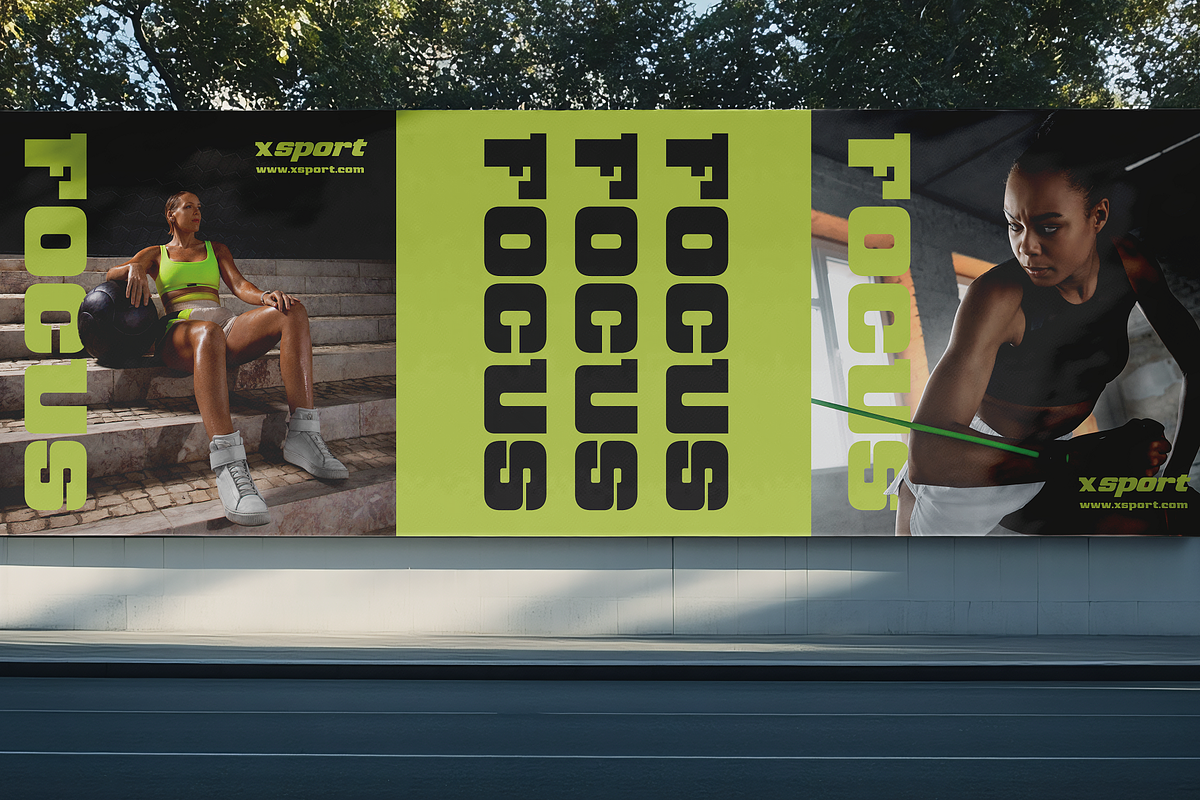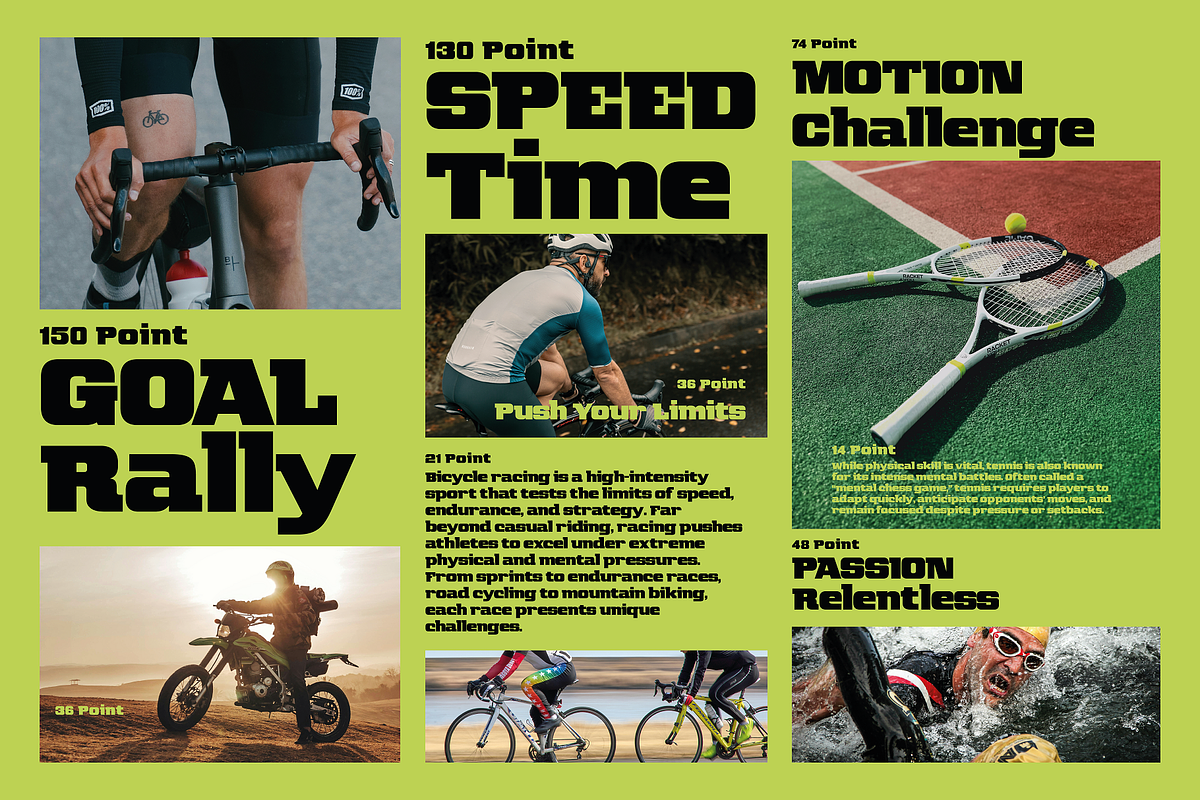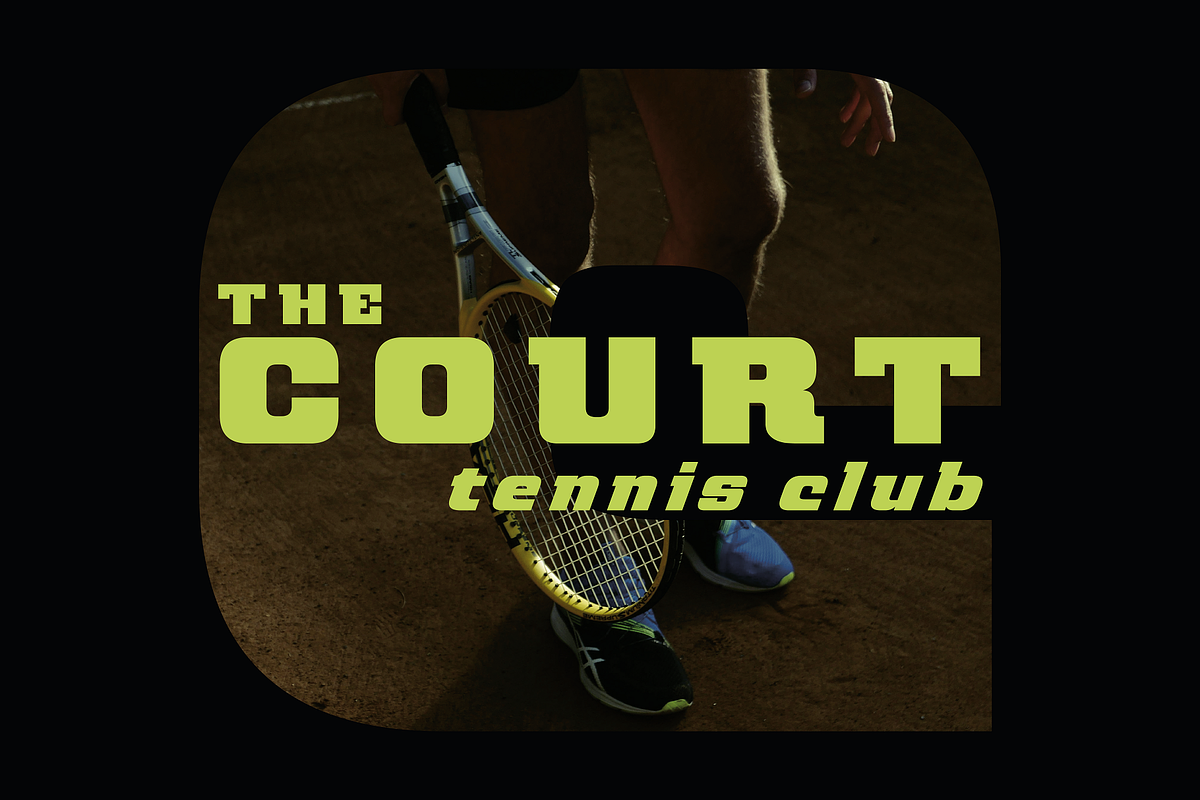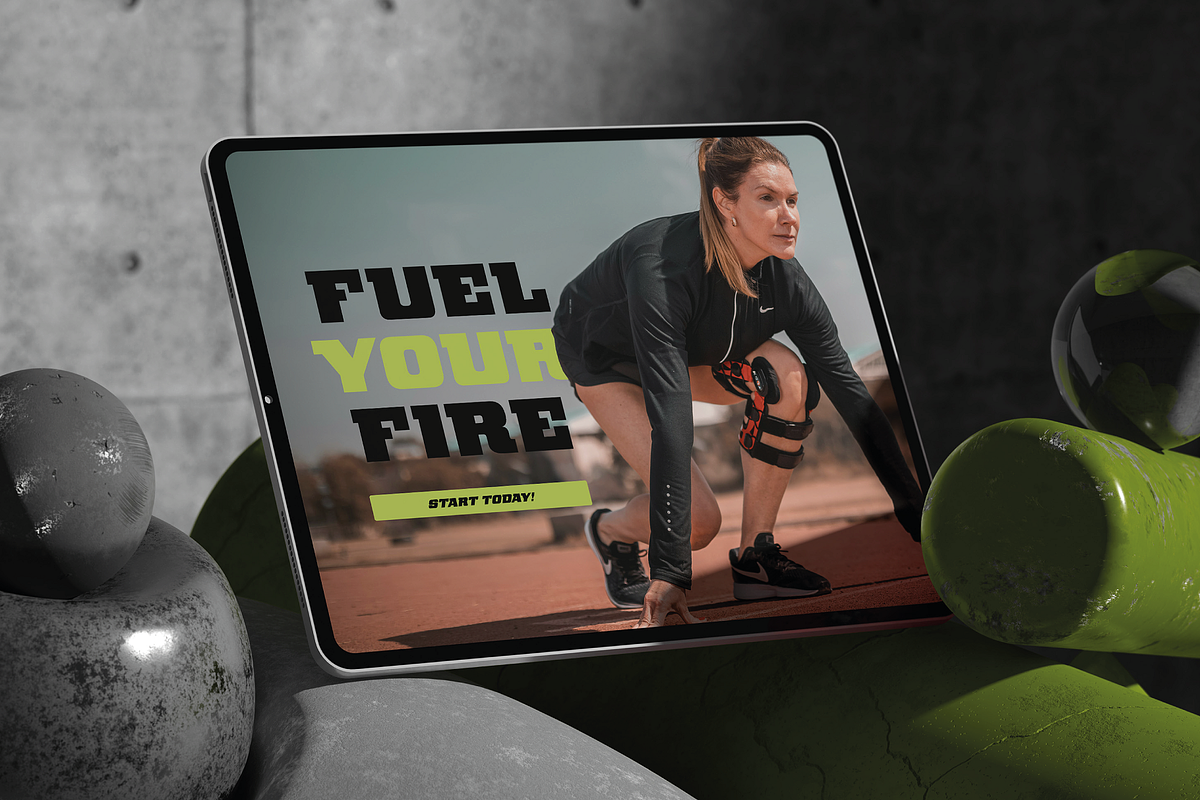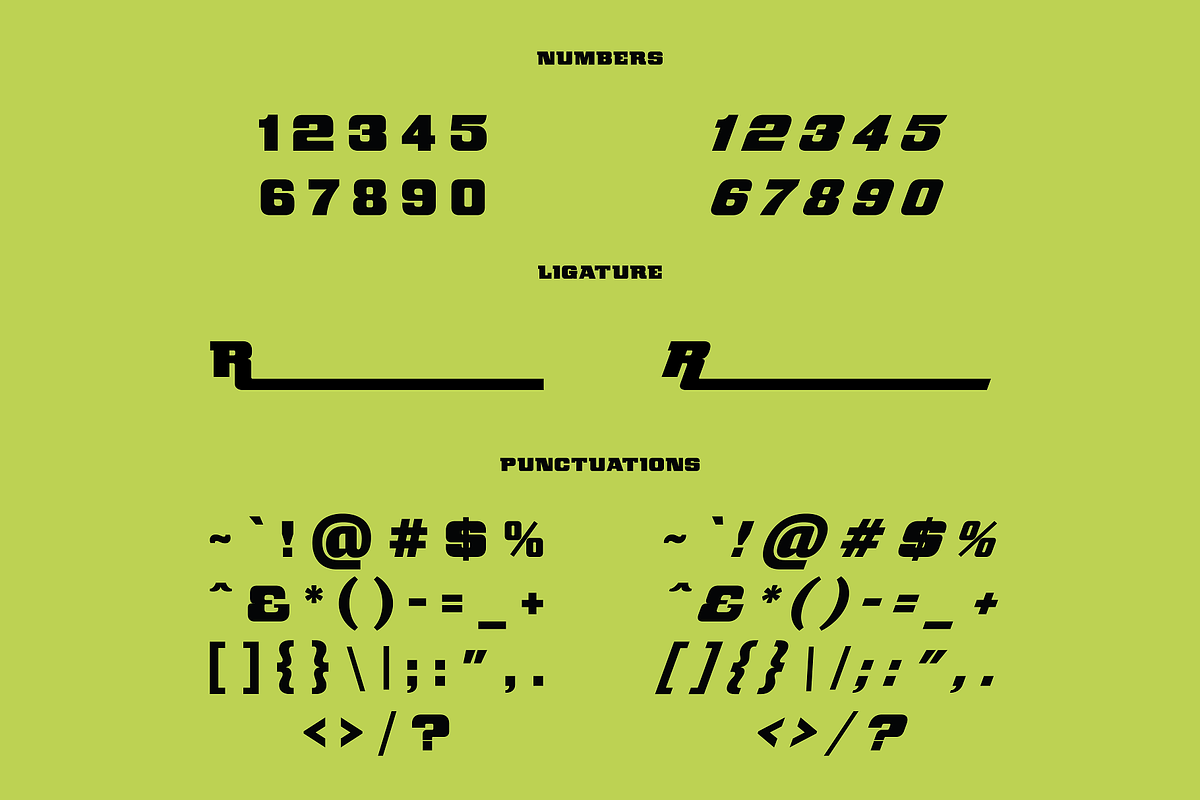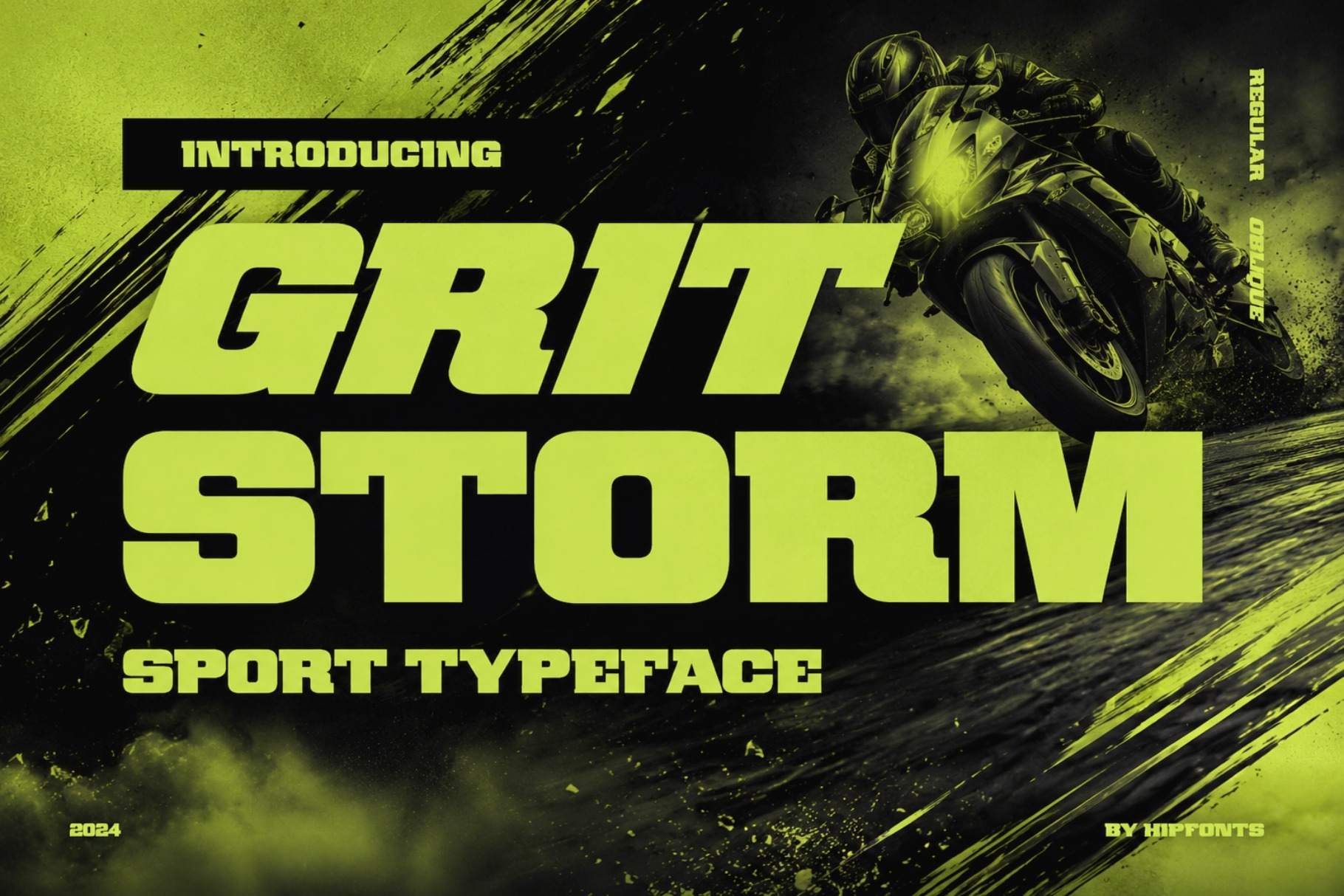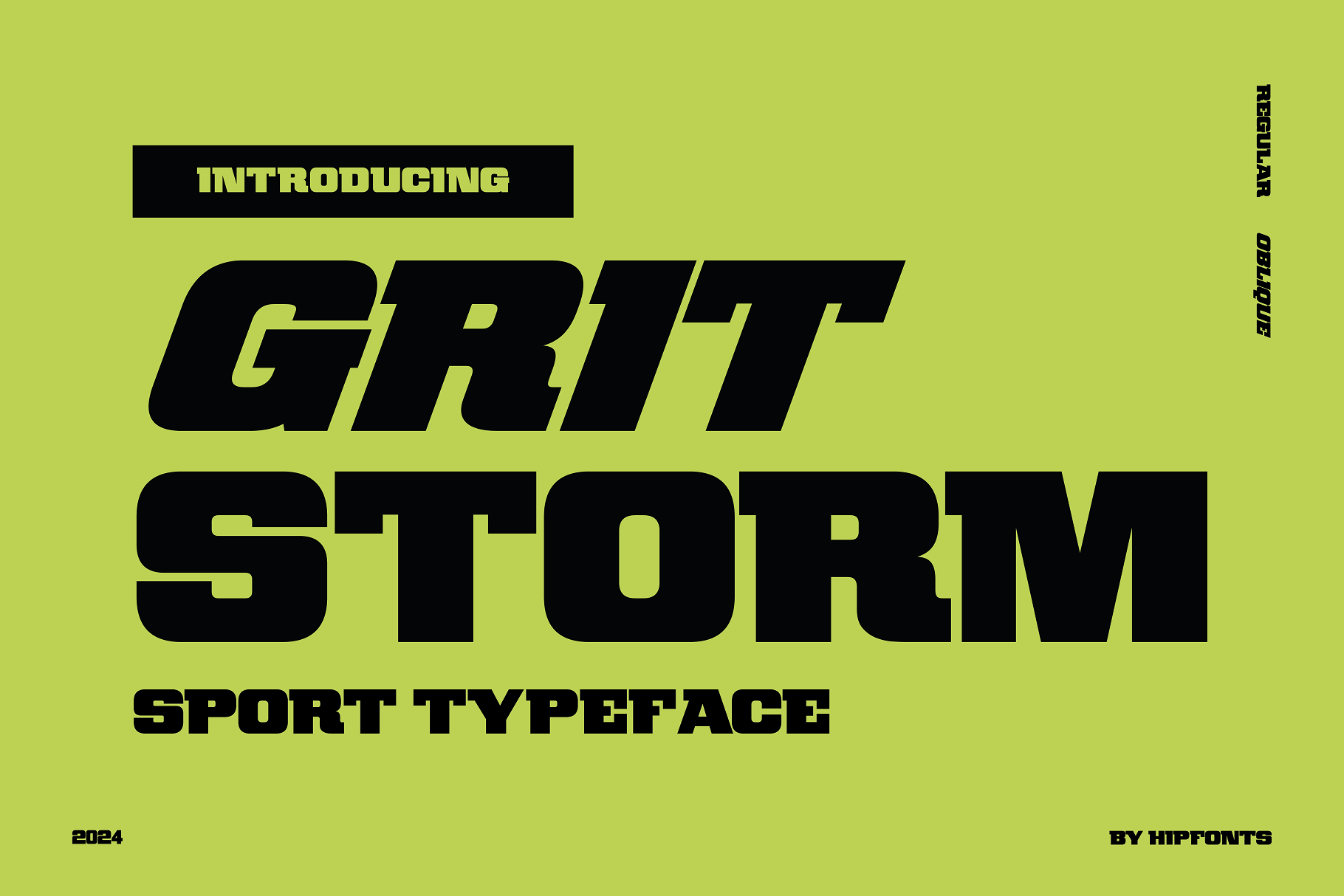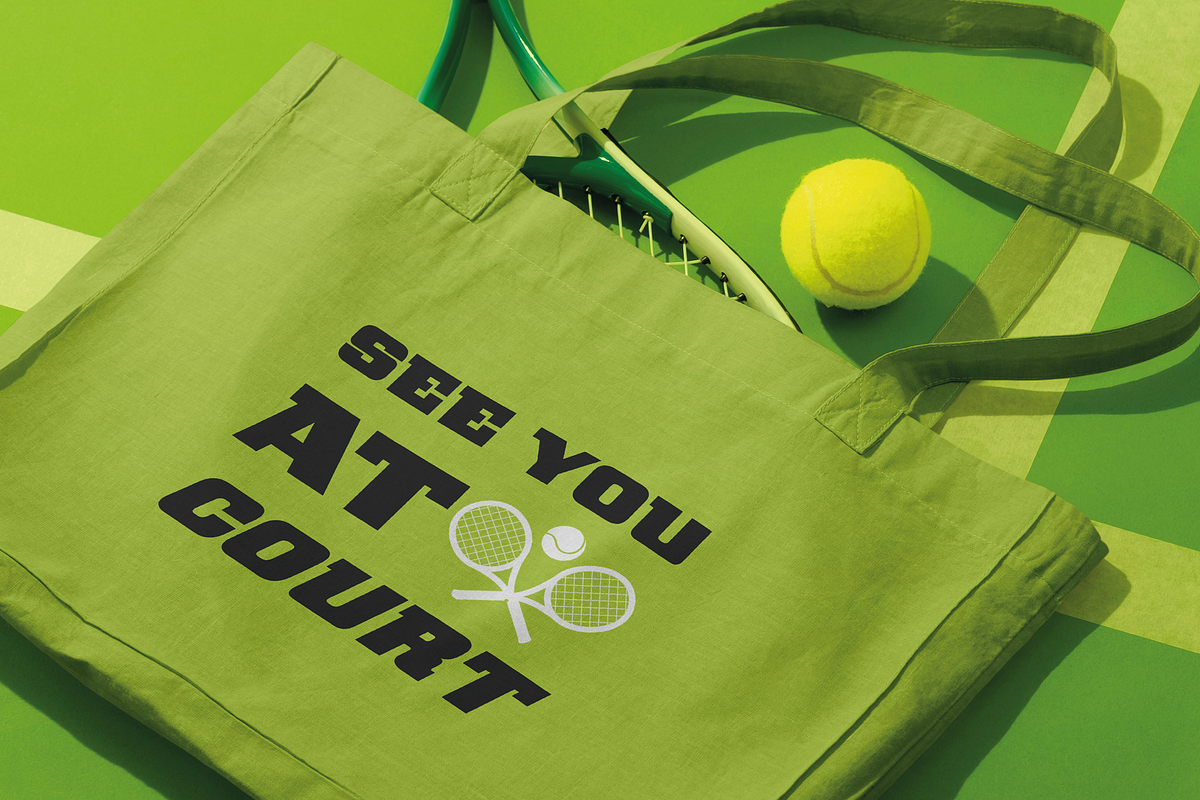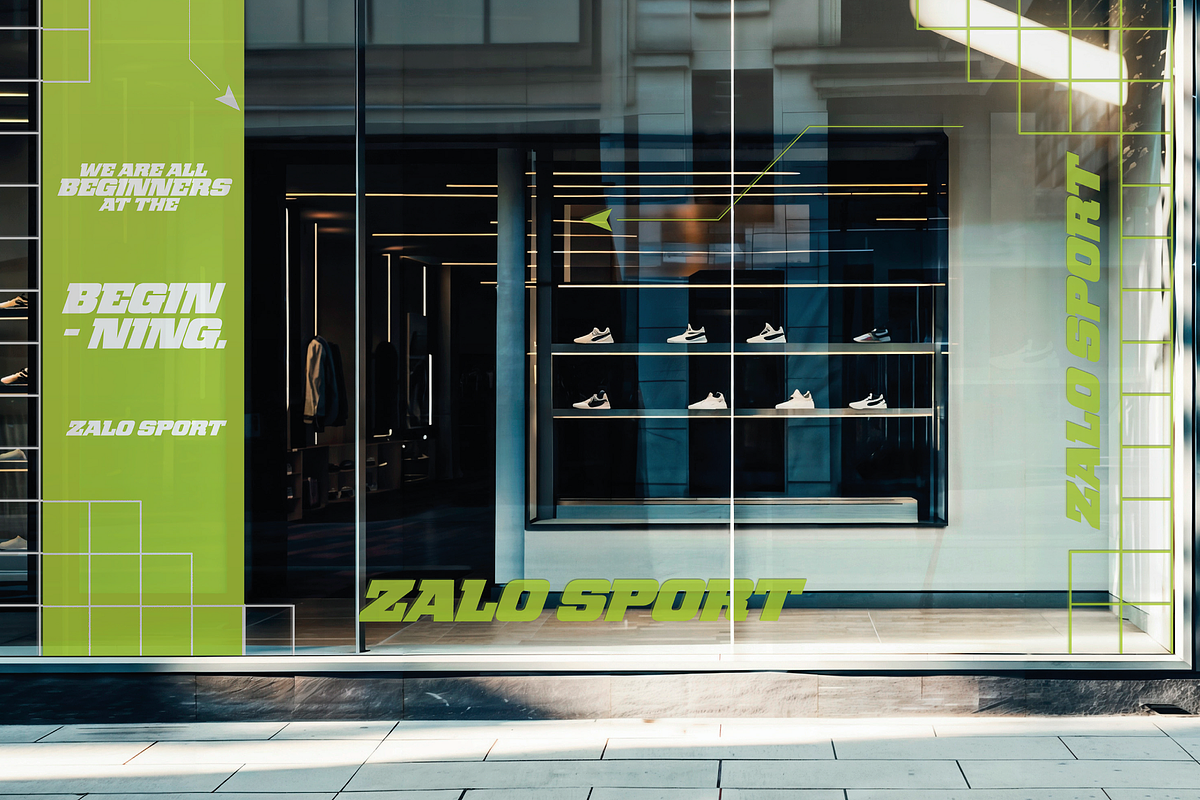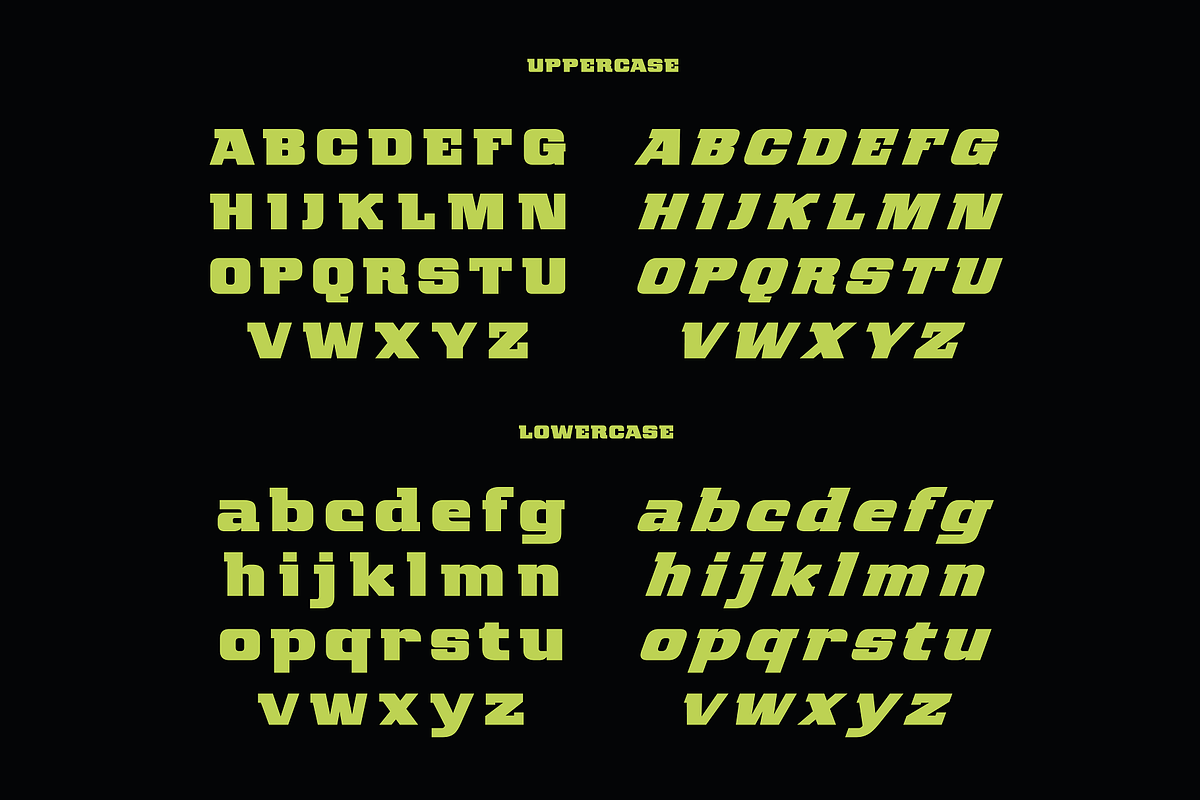
Gritstorm - Sport Typeface
Introducing Gritstorm – the powerhouse typeface that brings boldness, energy, and attitude to any design. Tailored for graphic designers who need a strong, impactful font, Gritstorm boasts thick, heavyweight letters that demand attention. Perfectly suited for sports branding, team jerseys, event posters, and even adrenaline-fueled social media graphics, this font infuses projects with a sense of intensity and grit.
With Gritstorm, you’re not just adding text; you're creating a visual punch that captures the spirit of competition and raw determination. Whether you're crafting a logo, designing merchandise, or setting type for digital and print ads, Gritstorm’s bold presence and athletic vibe give your designs a look that stands tall and proud. Make your message heard and let Gritstorm deliver it with unstoppable power!